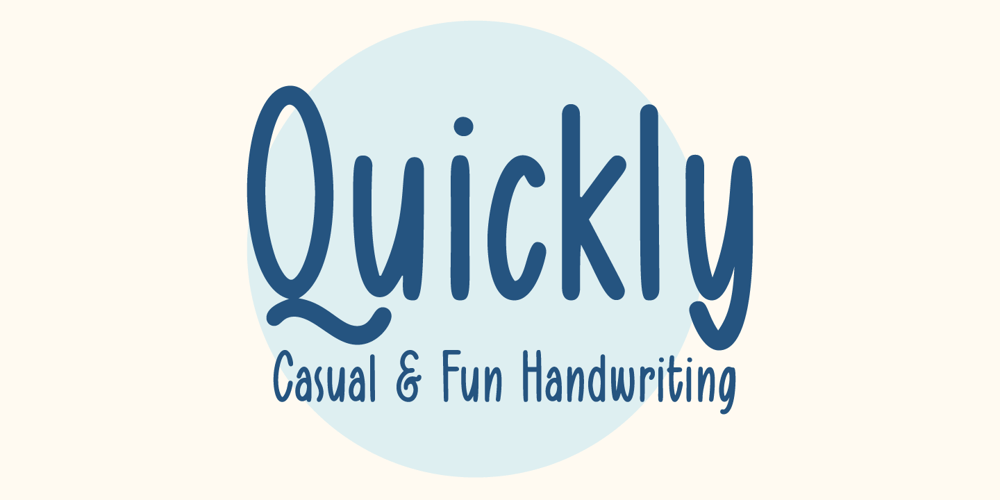
Quickly Freehand Font Family was designed by Muhammad Ridha Agusni, Siti Saribanon Nurjannah and published by Cititype. Quickly Freehand contains 2 styles and family package options. “Quickly Freehand” is a sans serif font in a casual handwriting style, this is an alternative font for when you get bored with the formal atmosphere. Comes with two versions, regular and italic, to complement your design needs. You can use this font for product labels, taglines, children’s craft, prints on t-shirts, paper bags, headlines, cheerful quotes and even long text writing. This font can be used in various graphics software, even in Microsoft Word. Supports 27 languages allowing Quickly Freehand to be used in the wider world.